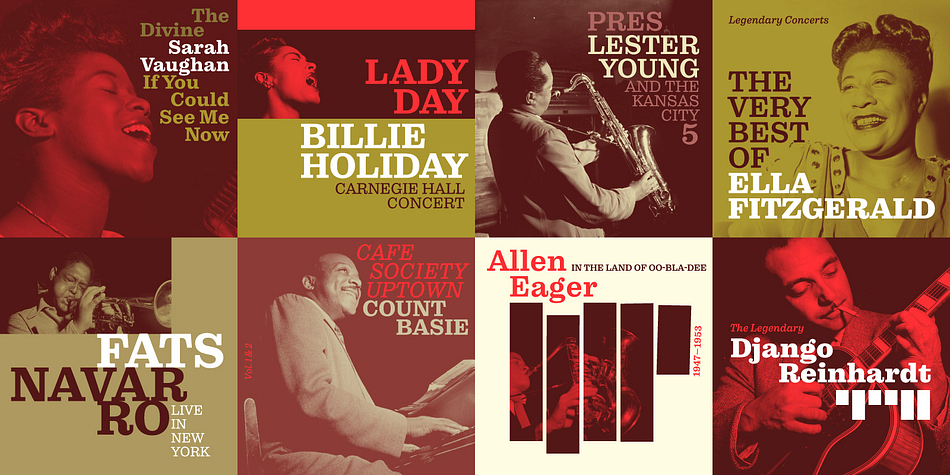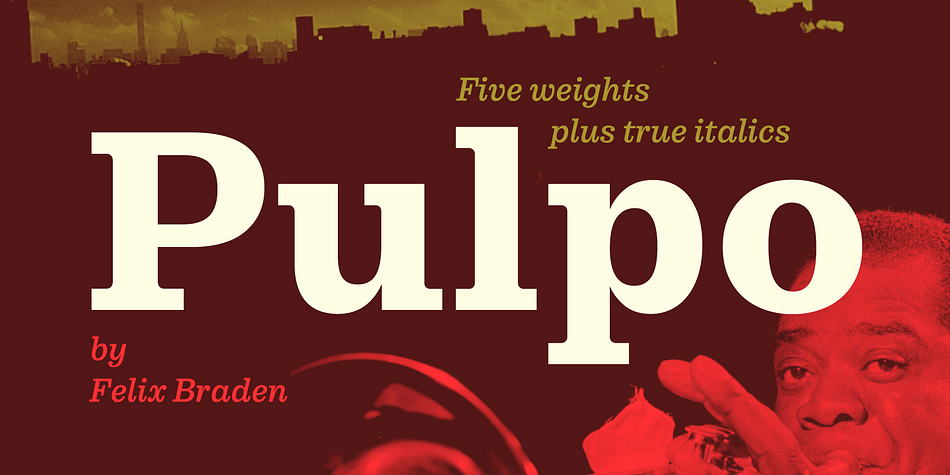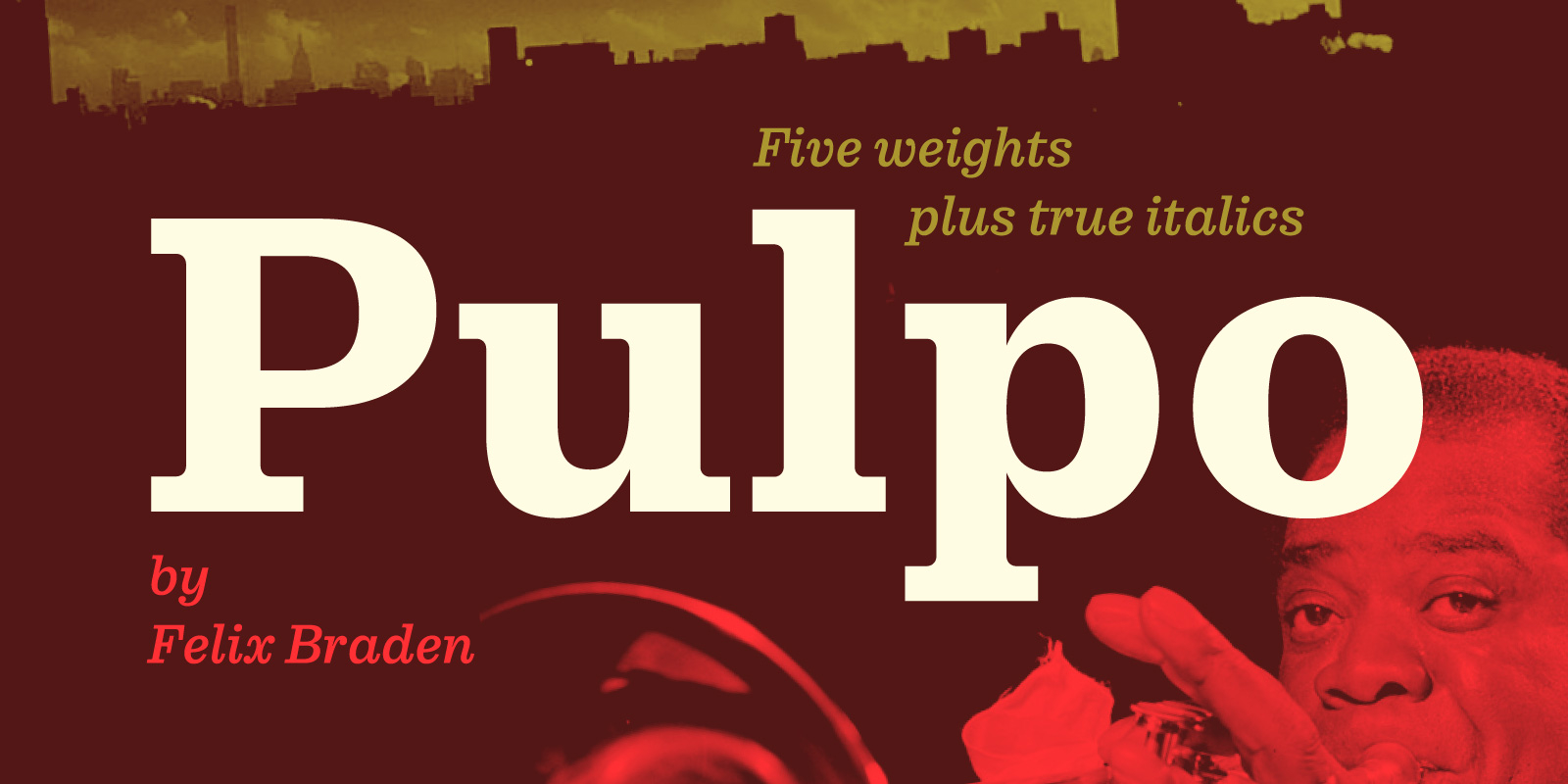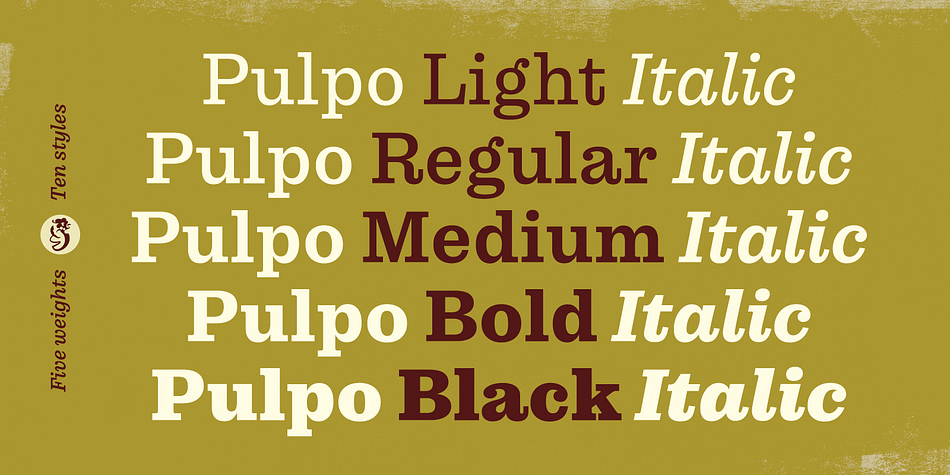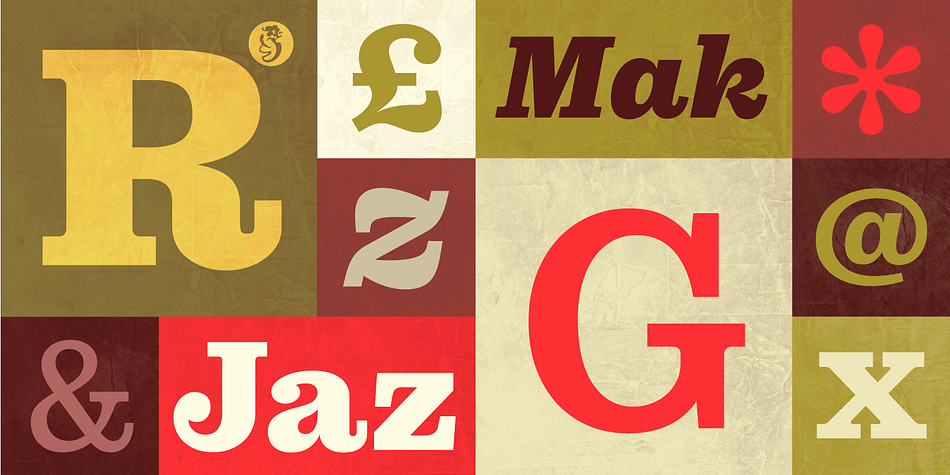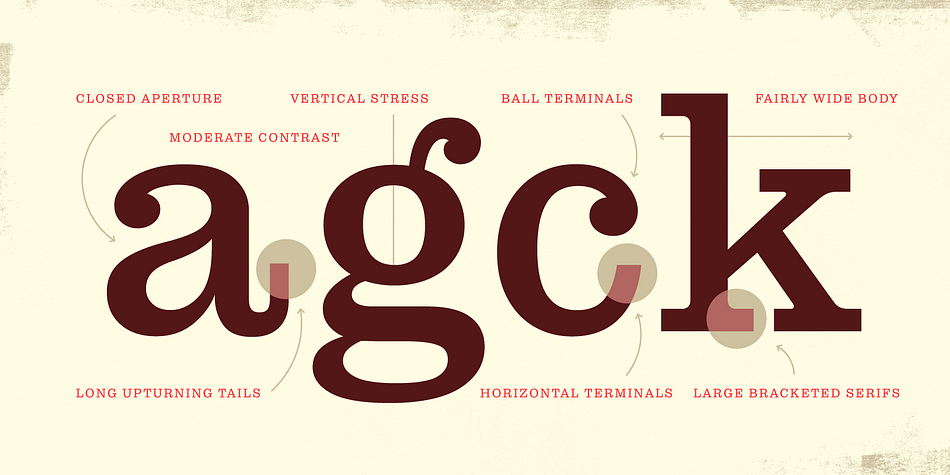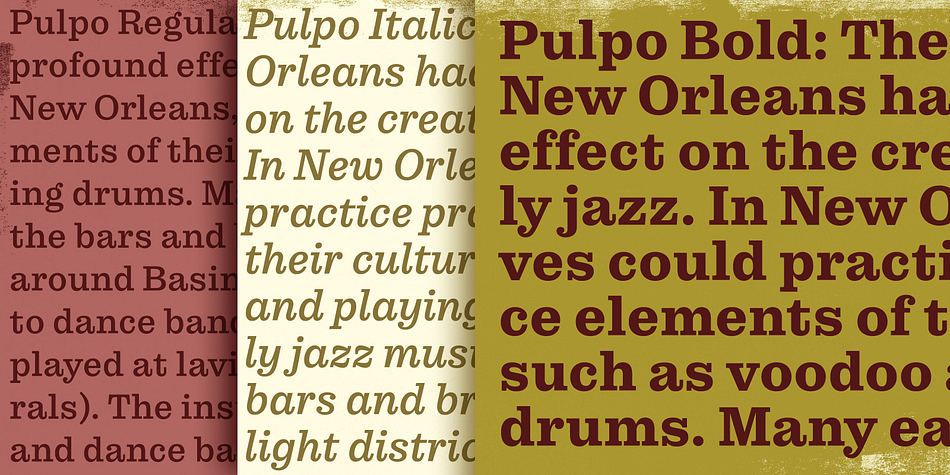
Designed by Felix Braden, Pulpo is a slab serif font family. This typeface has ten styles and was published by Felix Braden.
Pulpo is a friendly and comfortable looking Clarendon with the skeleton of Century Schoolbook. Longer extenders give text a bit more air to breathe and improve legibility in small text sizes. Despite the strength and sturdiness of the design, each letter shape carries warmth and an echo of the human hand. The familiarity of the letterforms also conceals some nostalgia.
The family has 10 styles, ranging from Light to Black (including italics) and is ideally suited for editorial, advertising and packaging as well as web and app design. A massive body combined with low stroke contrast, emphasizing the horizontal elements, make it very suitable on screen and for small text sizes on newsprint paper. Each cut includes 489 glyphs with four sets of numerals and extended language support to meet the needs of today’s communication.